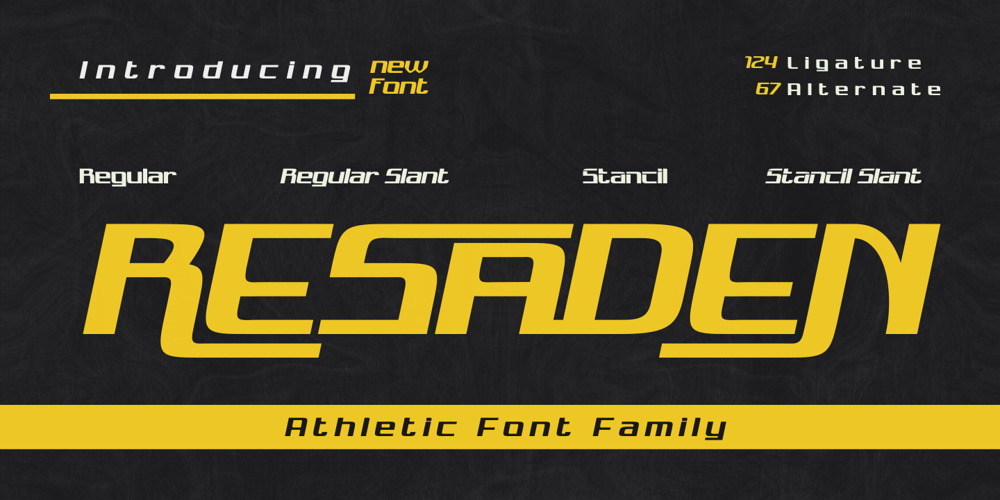
Resaden Font Family was designed by Rozikan and published by Twinletter. Resaden contains 4 styles and family package options. Resaden is a powerful display font designed to grab attention and highlight any project that calls for a bold, strong, vibrant, and sporty look made to add a dynamic touch to your sports-themed designs. a sporty and modern font, perfect for sports t-shirts, sports events, and more. Its bold style conveys a strong and sporty impression. This font can also be used for any headline or documentary project.This font has 67 alternates and 124 ligatures for all letters, as well as 4 styles making it a versatile tool for creating originality in your various design needs.What’s Included :- All glyphs Iso Latin 1- Alternate, Ligature- Simple installations- We highly recommend using a program that supports OpenType features and Glyphs panels like many Adobe apps and Corel Draw so that you can see and access all Glyph variations.- PUA Encoded Characters – Fully accessible without additional design software.- Fonts include Multilingual support